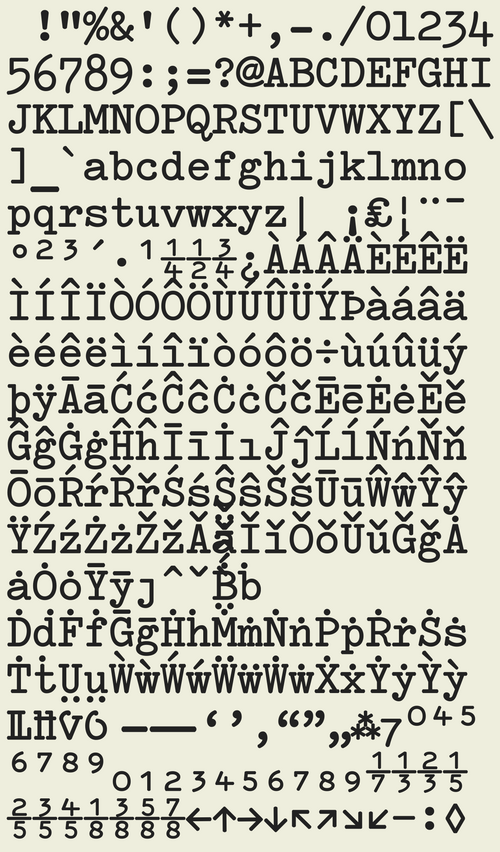
Better Support for Irish and Middle-Welsh
I added Tironian Et and dotted letters to my font, which means both traditional and modern orthographies for Irish are supported. I added two letters used by Middle Welsh (LL and V). As well as extending the accented letters.
Typewriter B Font
A typewriter font